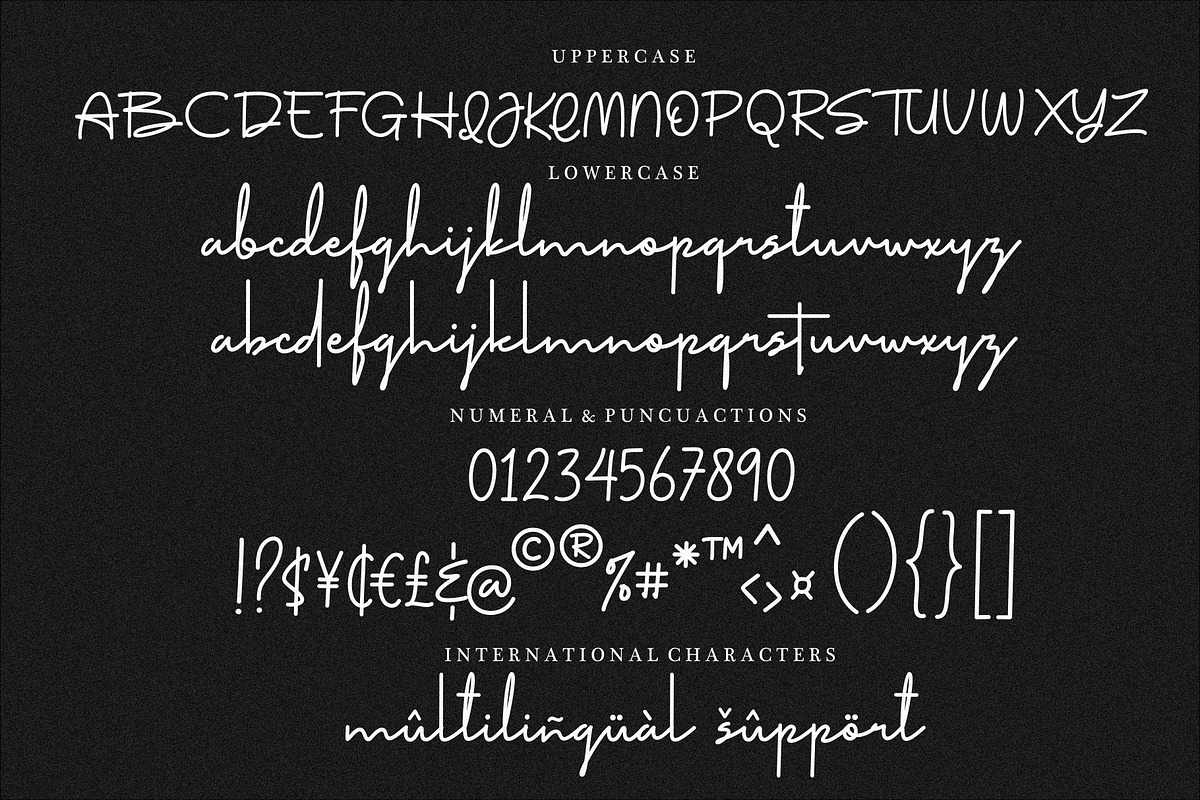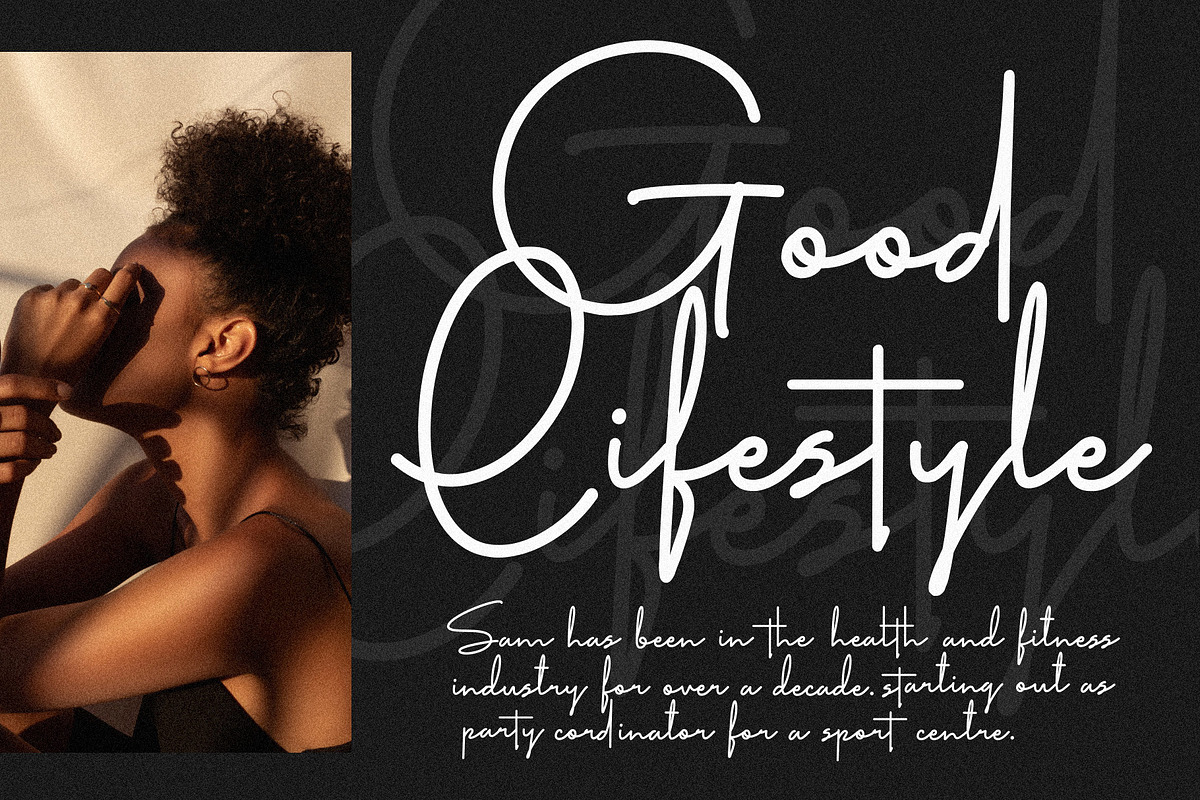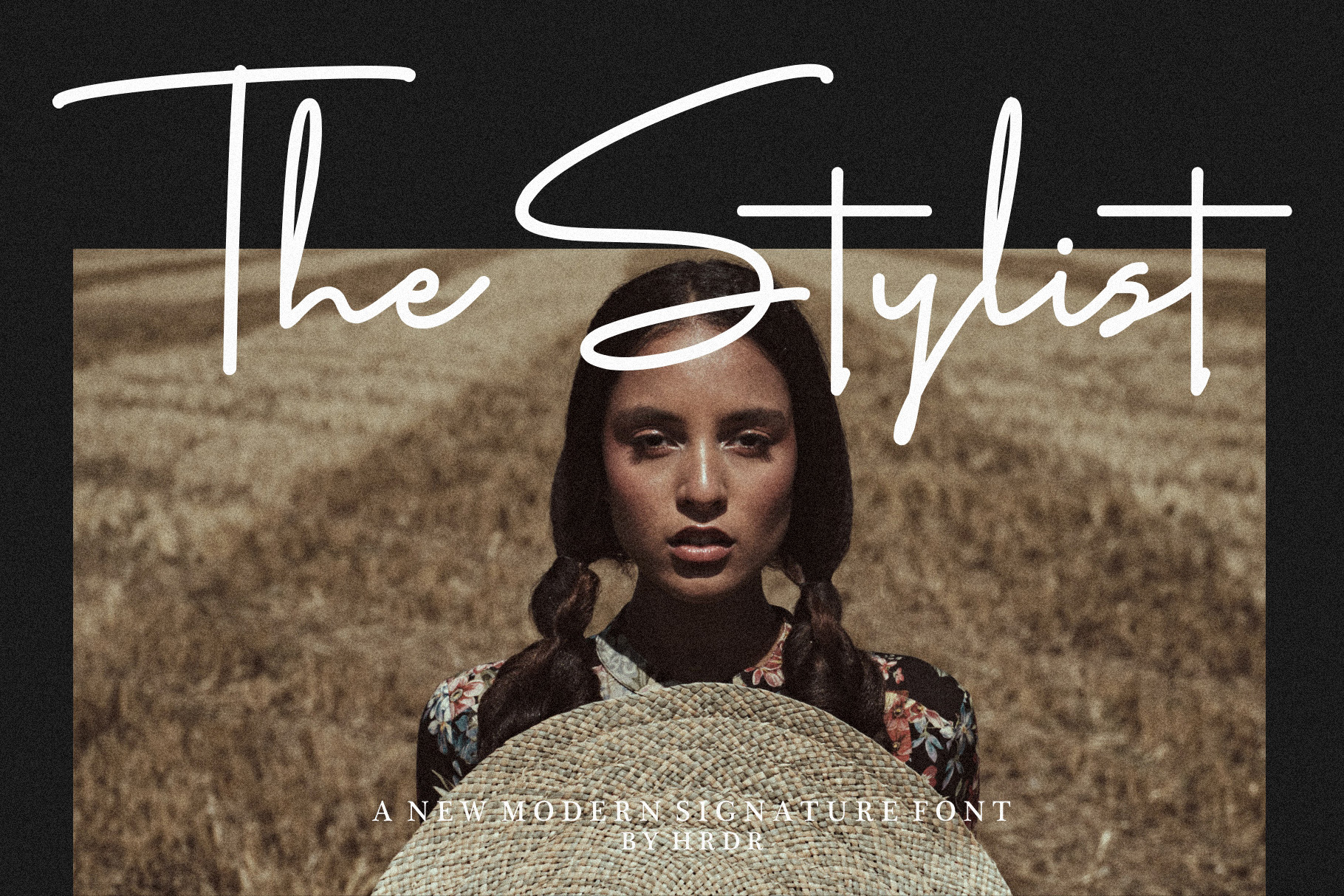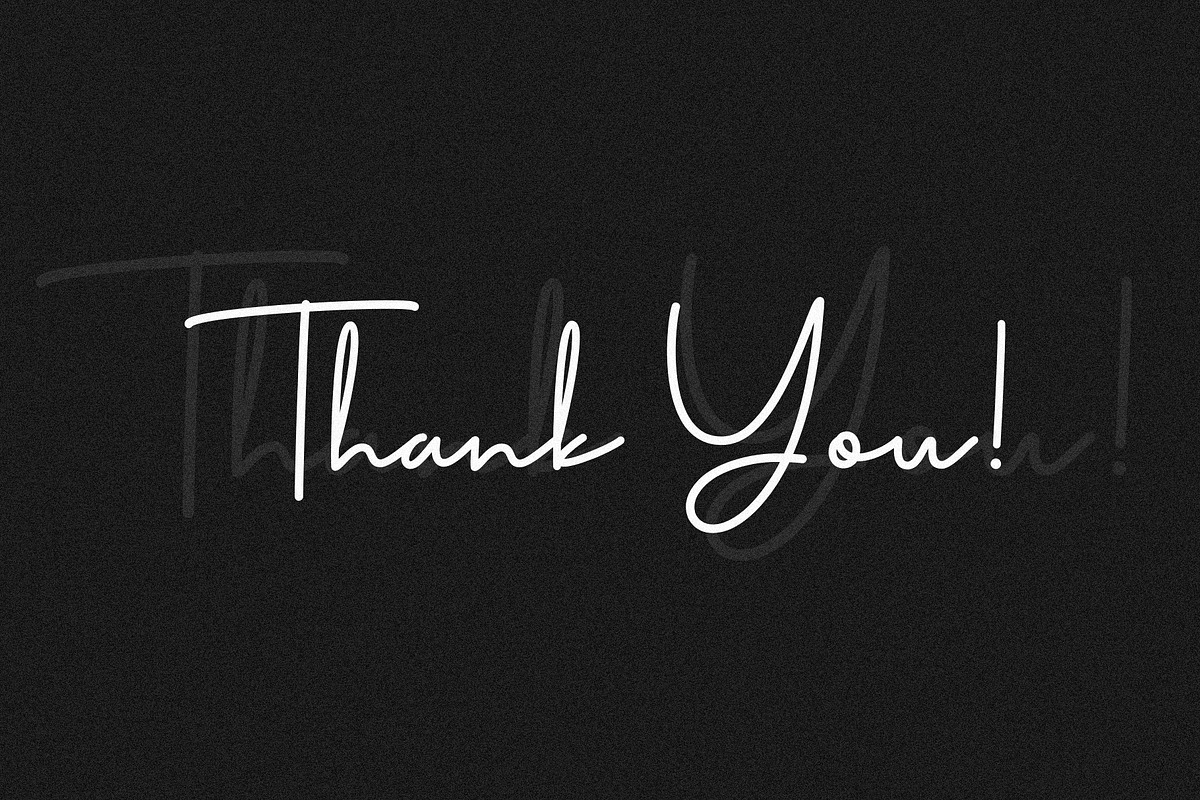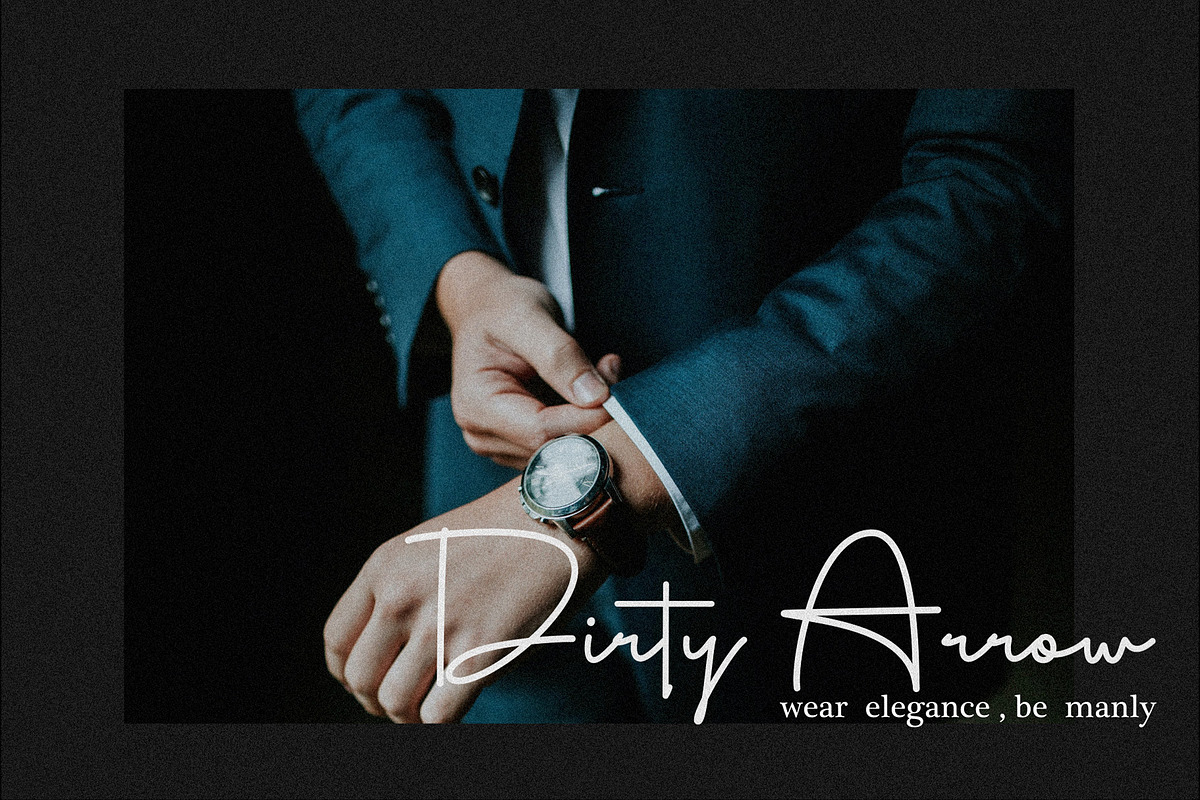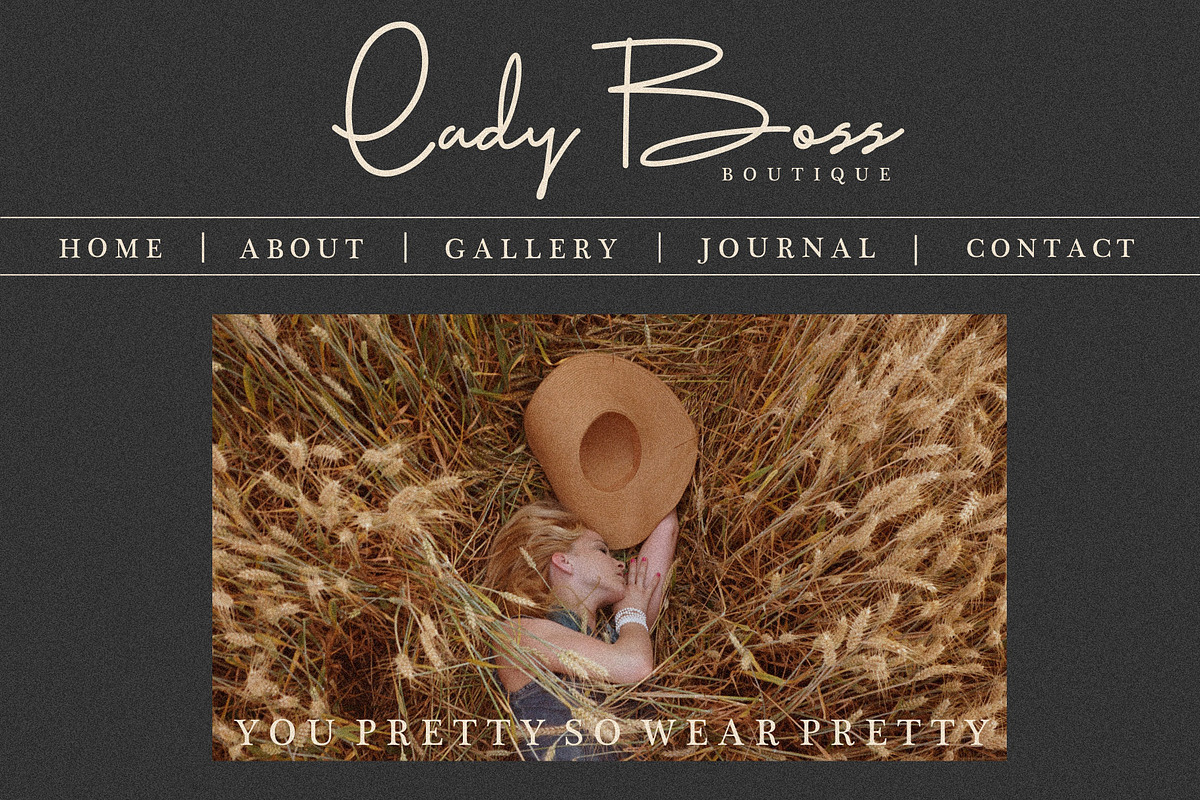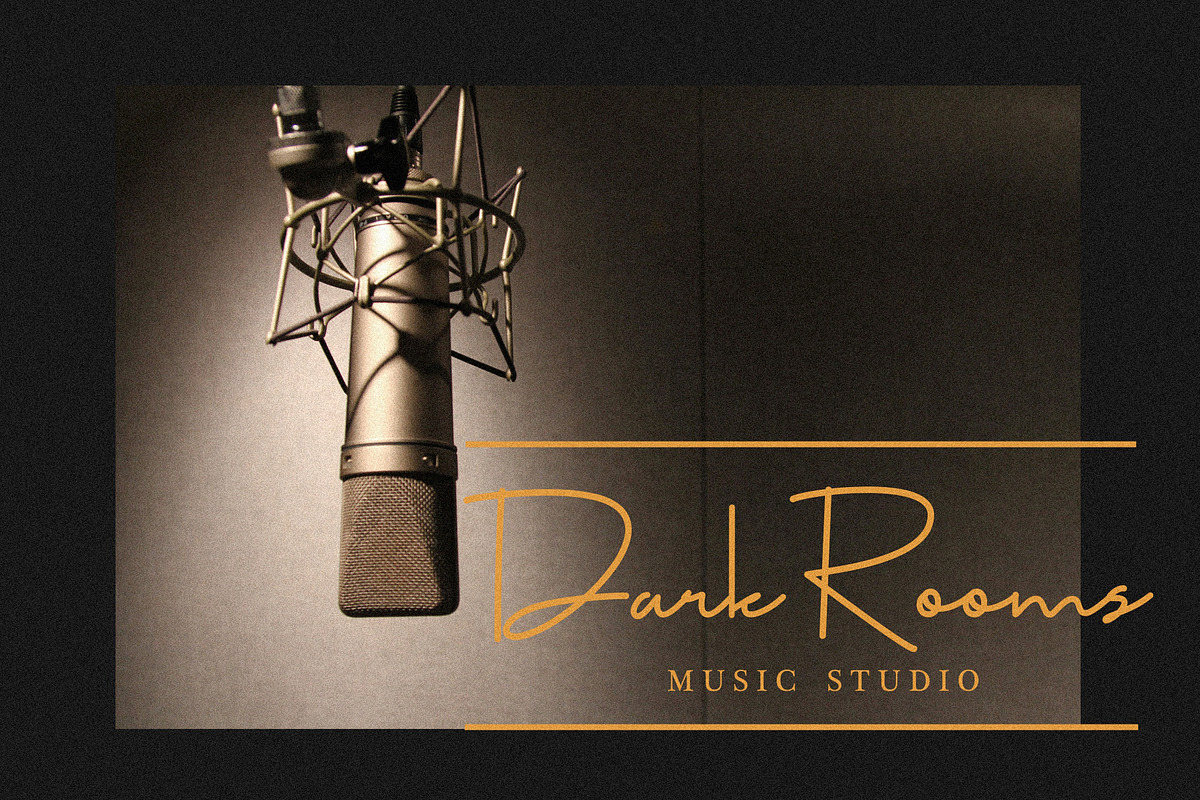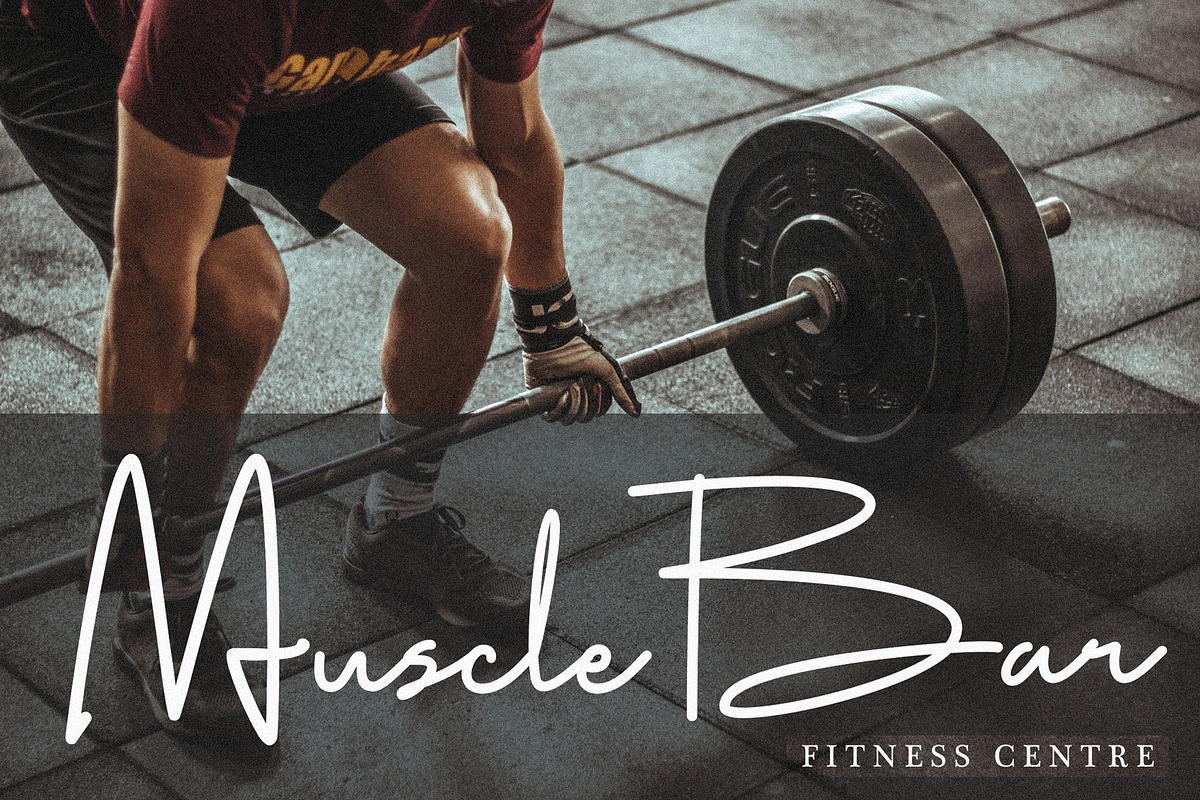
The Stylist - Modern Signature Font
Say hello to The Stylist! A new signature font with a simple and classy style!
Really befit to all your design project,like invitation card,product logo,quotes, business card, food brand logo ,website and much more.
The stylist coming with open type features like stylistic set 01 and support PUA Encoded font files for use with software that doesn't support OpenType features such as Silhouette, Inkscape, etc